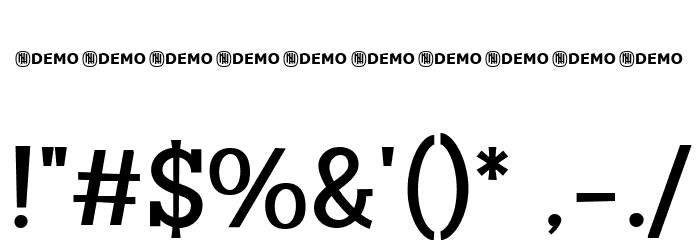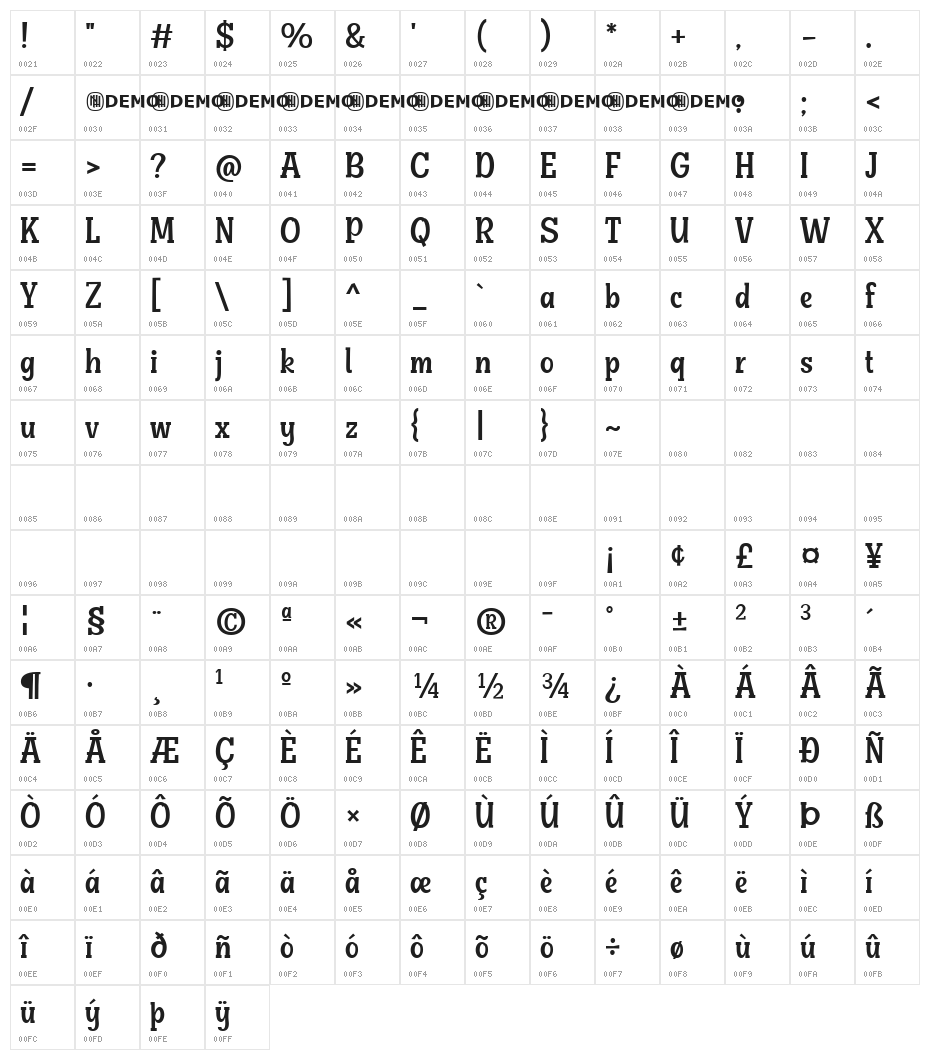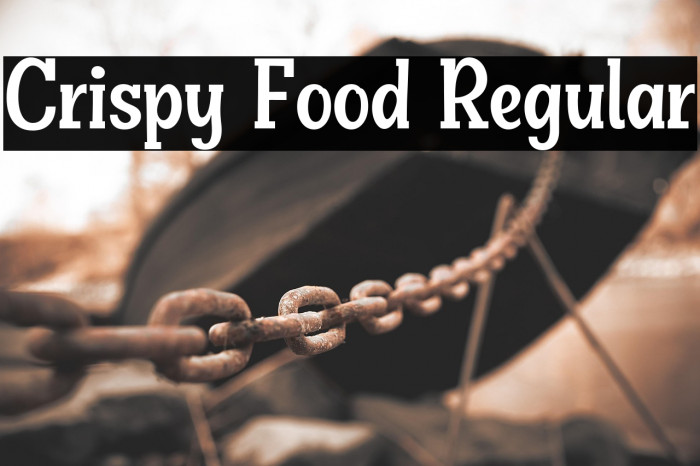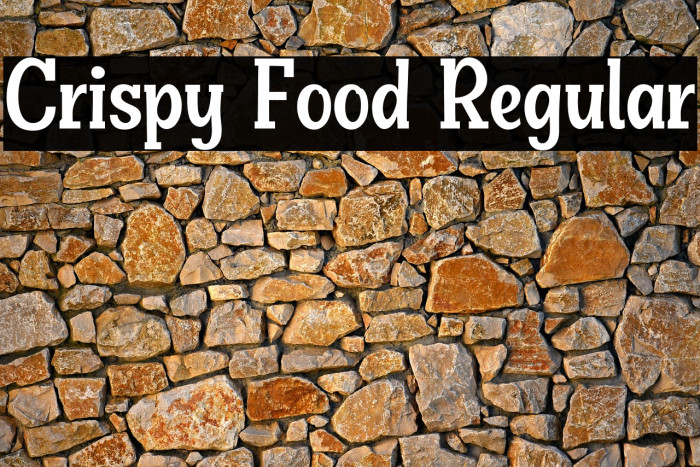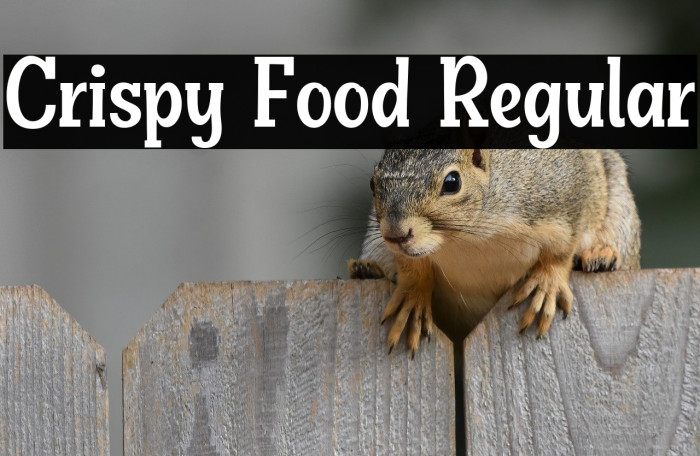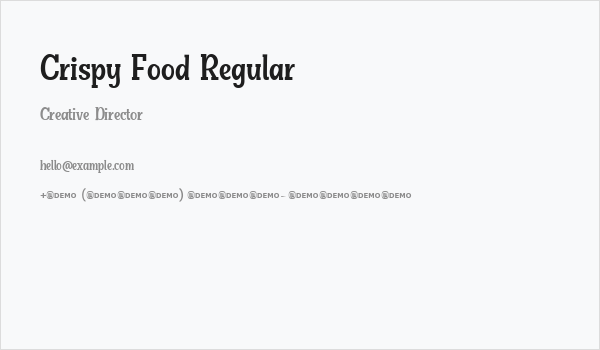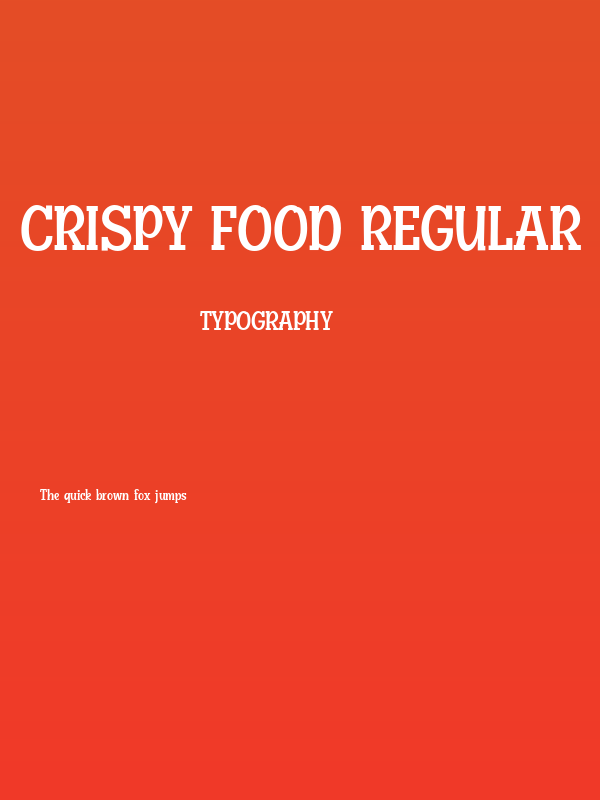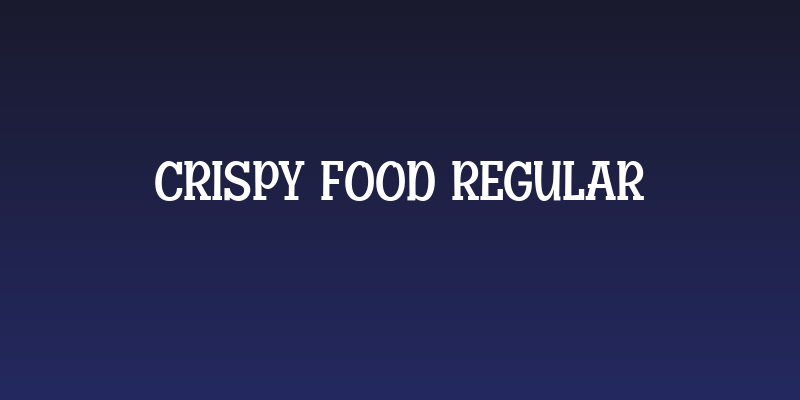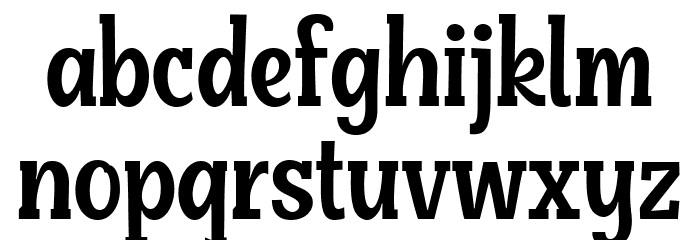
Crispy Food Regular Font
Crispy Food Regular Description
This font features a bold and robust serif style with a strong presence. The characters are well-defined with thick strokes and slightly curved serifs, giving it a classic yet modern appeal. The uppercase letters are tall and commanding, while the lowercase letters maintain a consistent flow with a slightly condensed appearance. The numerals are clear and distinct, matching the overall boldness of the font. Special characters are designed with the same attention to detail, ensuring uniformity across all glyphs. This font is versatile, suitable for various design needs where a strong and impactful typeface is required.
| Overall Style | Modern Classic |
| Proposed Projects | Ideal for branding, headlines, posters, and any project requiring a strong, impactful typeface. |